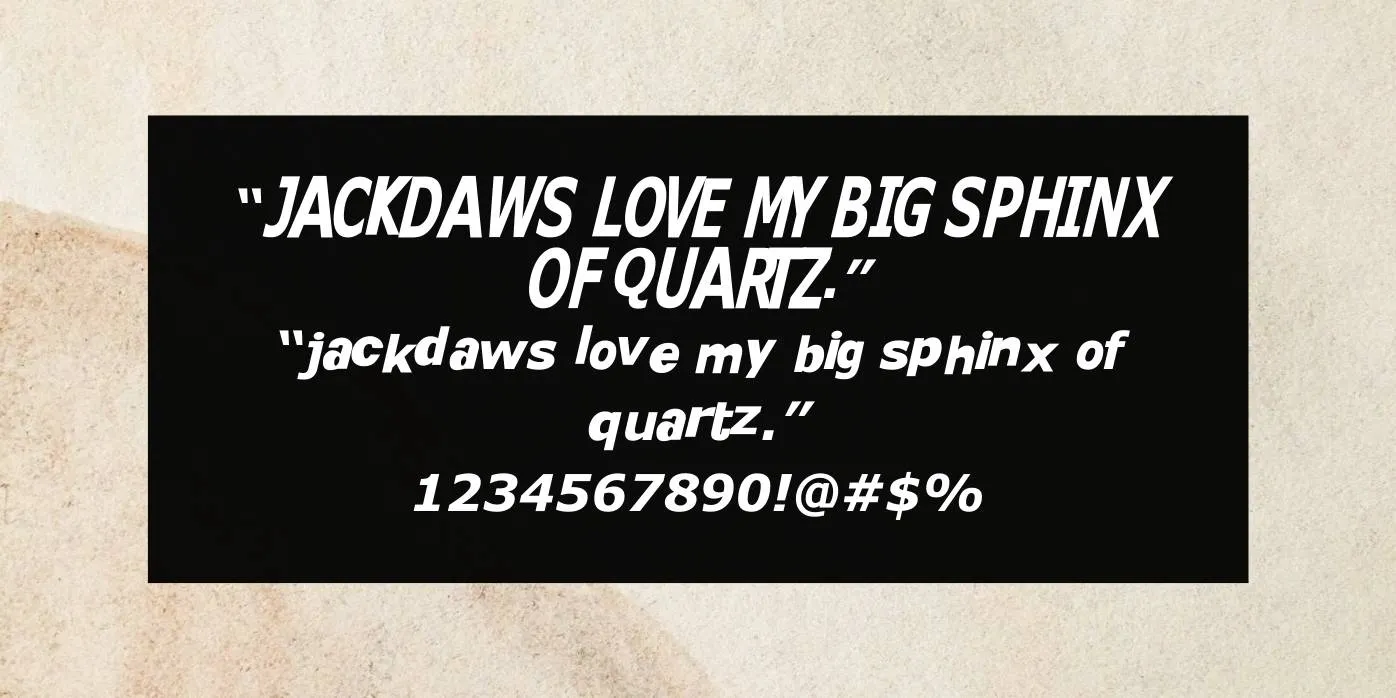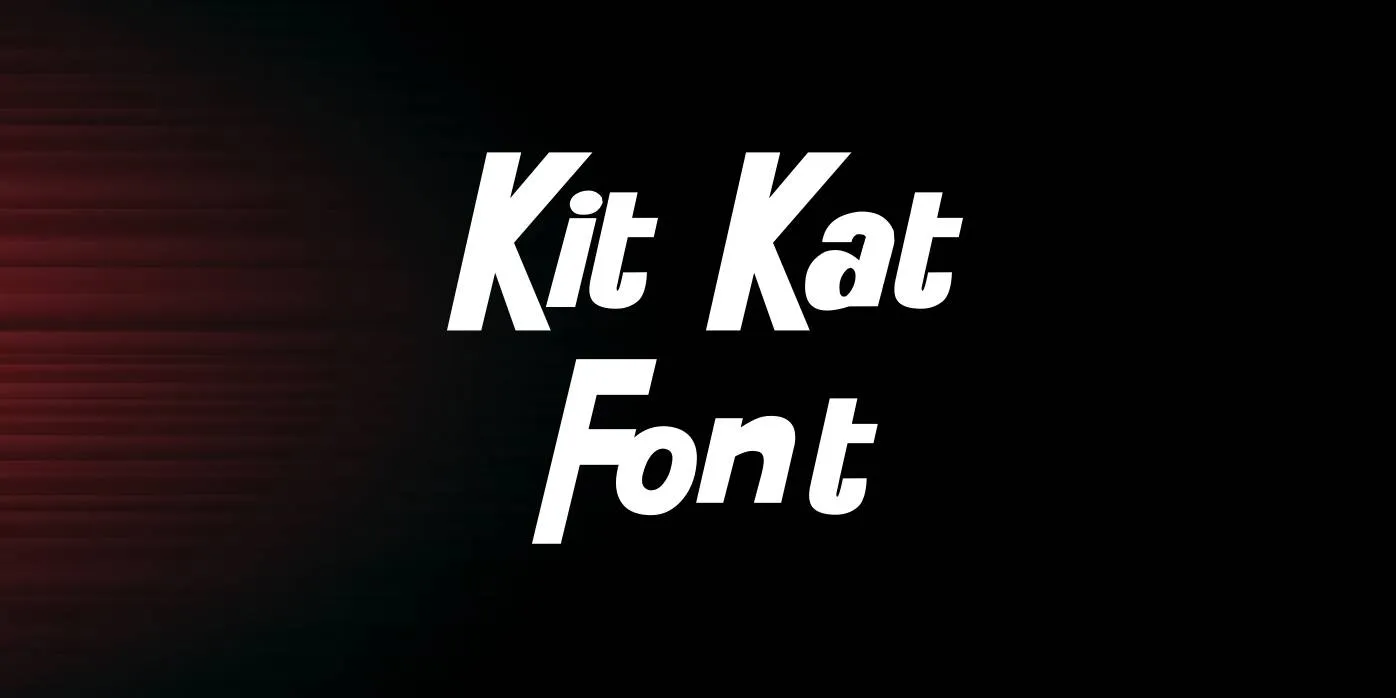
Kit Kat Font
Kit Kat is a display typeface that was created to use in the logo of the KitKat chocolate brand. The font includes both upper and lowercase letters, as well as numbers and symbols. Its simple, clean lines make it highly legible and versatile, making it an excellent choice for both body copy and headlines. Additionally, the font’s rounded corners give it a friendly, approachable appearance.
While Kit Kat Font is often used for its clean and modern look, it can also be used to create more vintage or retro designs. When used with a distressed texture or in all caps, the font takes on a completely different personality. You can also try the elegant caviar dreams font and can make amazing stuff by pairing these typefaces.